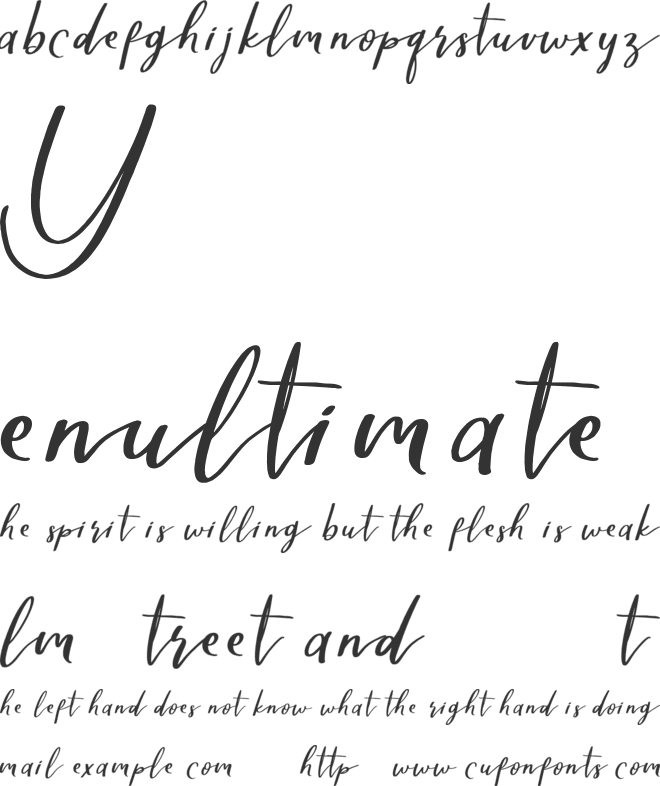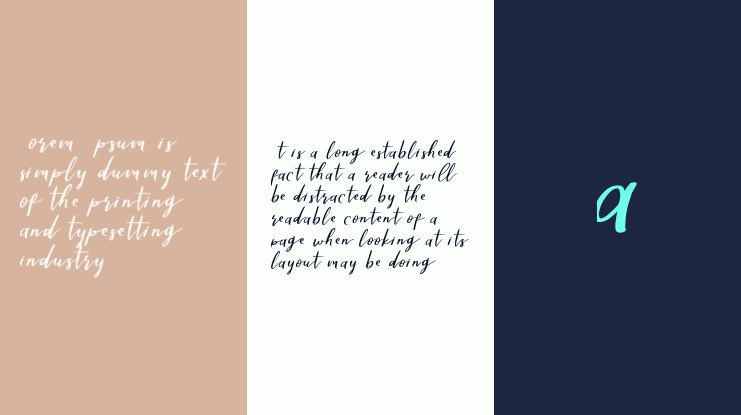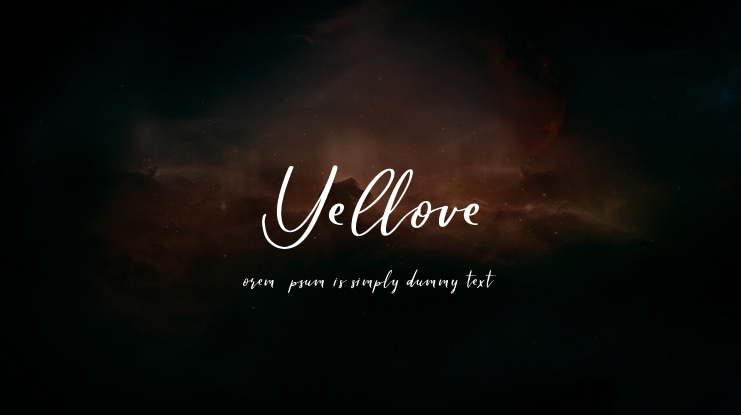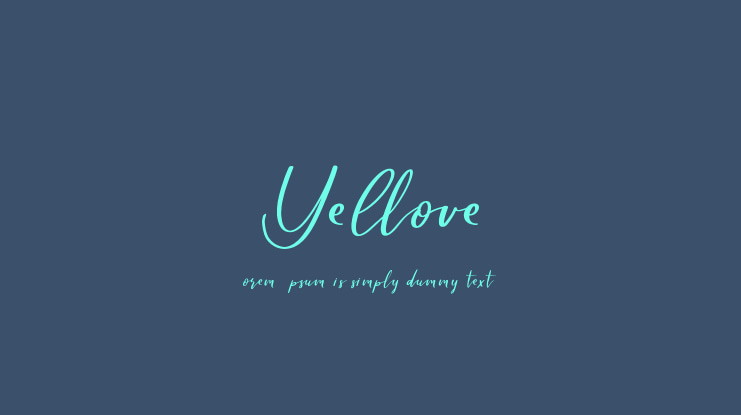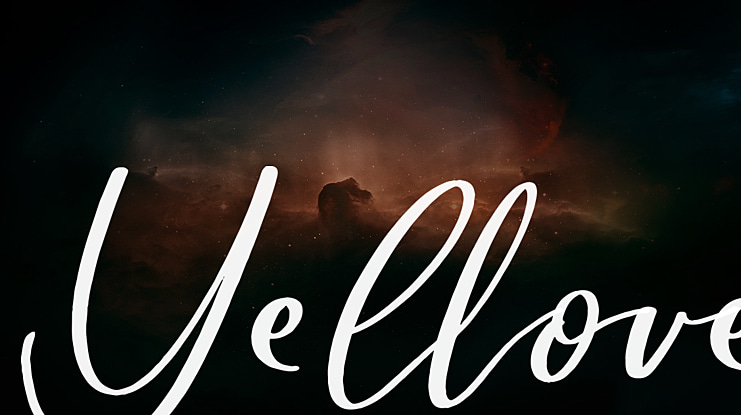
Yellove DEMO Font
A beautiful hand writing modern calligraphy fonts with a huge versatileness for any casual branding needs. Ladies and Gentleman, please welcome, Yellove Duo. A duo fonts that you’ll love to love.